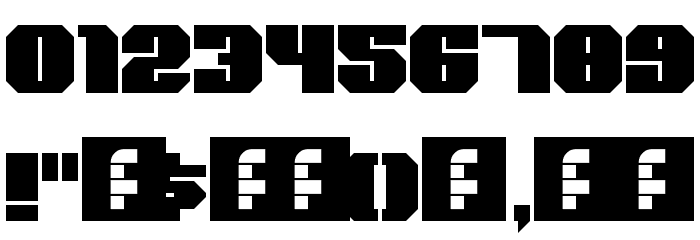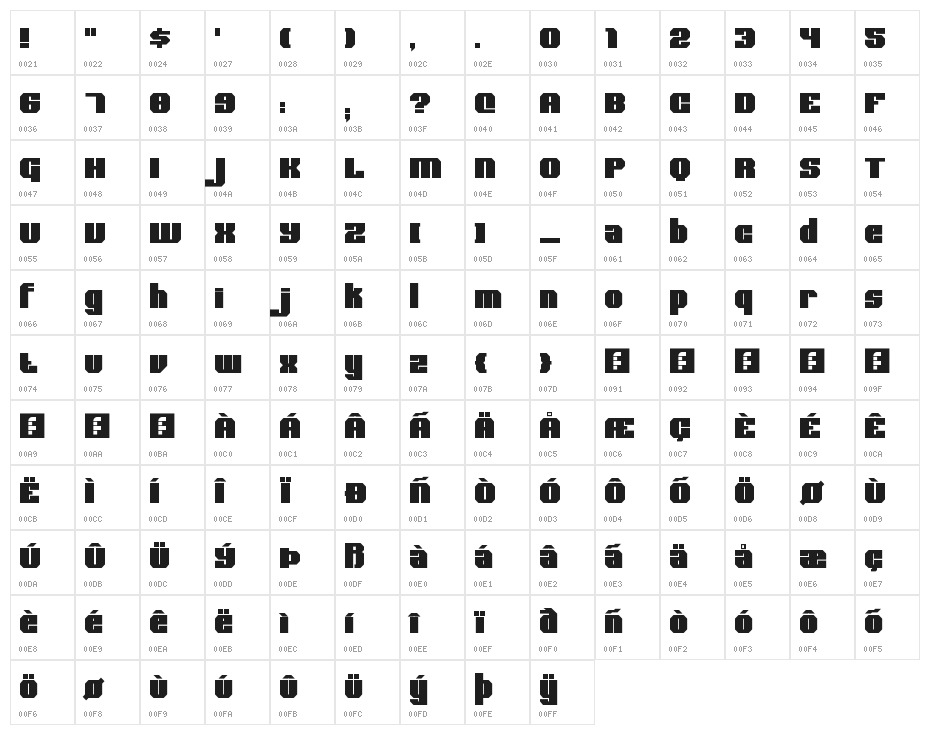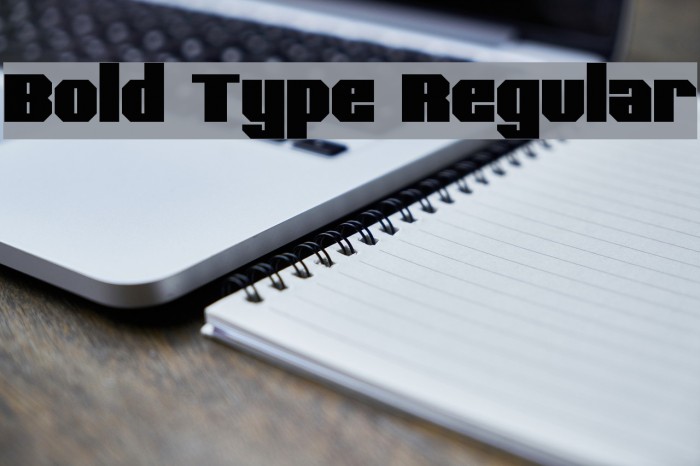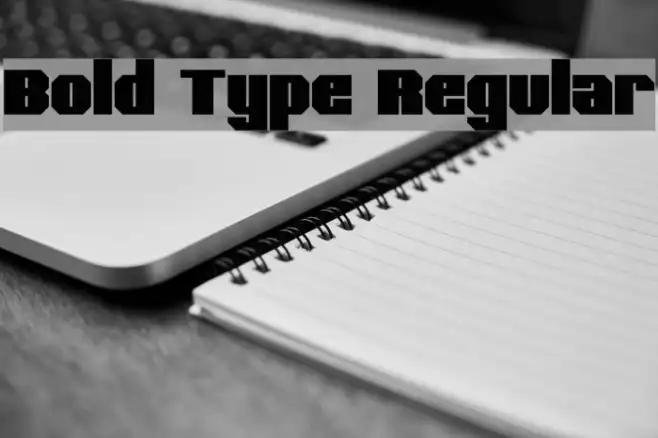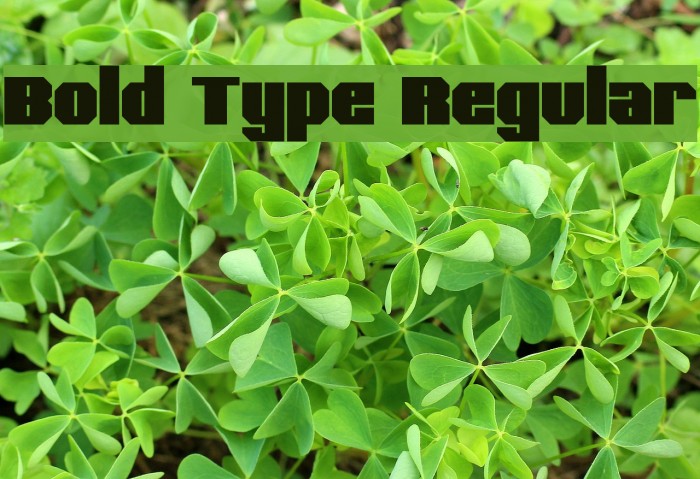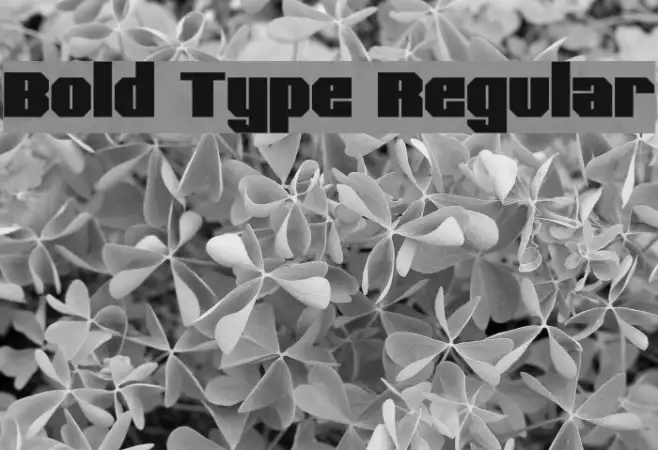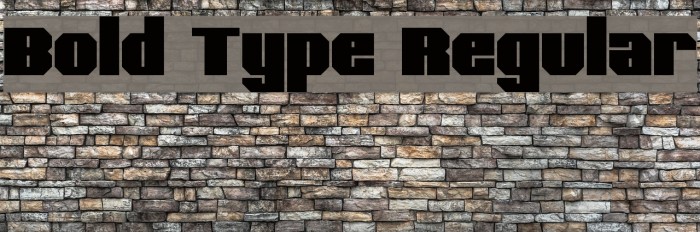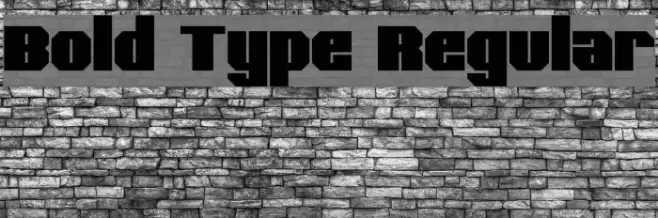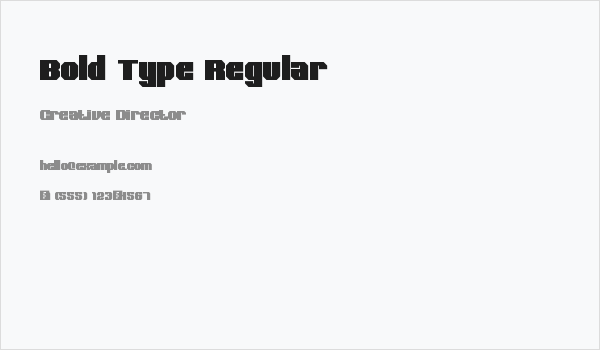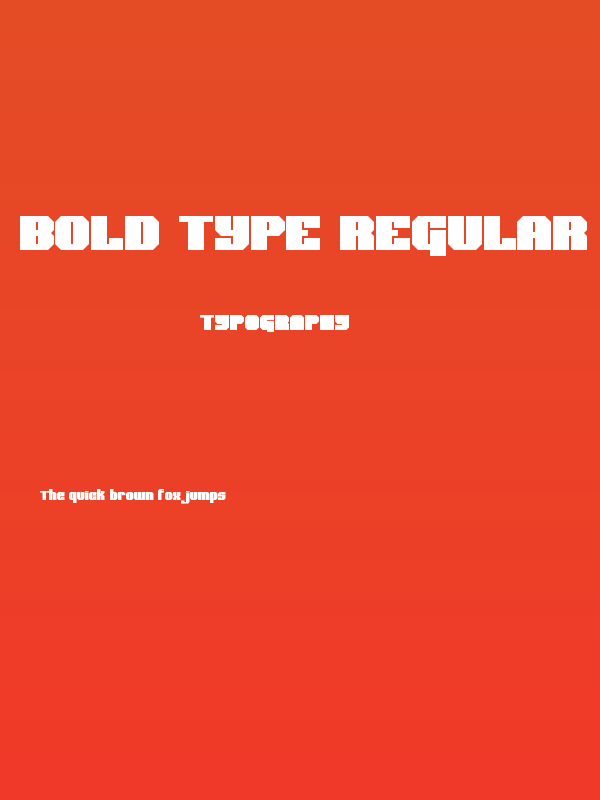
Bold Type Regular Font
Bold Type Regular Description
This font features a bold, geometric design with strong, angular lines and a blocky appearance. The characters are uniformly wide, creating a sense of stability and strength. The uppercase and lowercase letters maintain a consistent height, contributing to a cohesive look. The numbers and special characters follow the same bold style, ensuring uniformity across all glyphs. This font's design is reminiscent of industrial or futuristic themes, making it suitable for impactful visual statements.